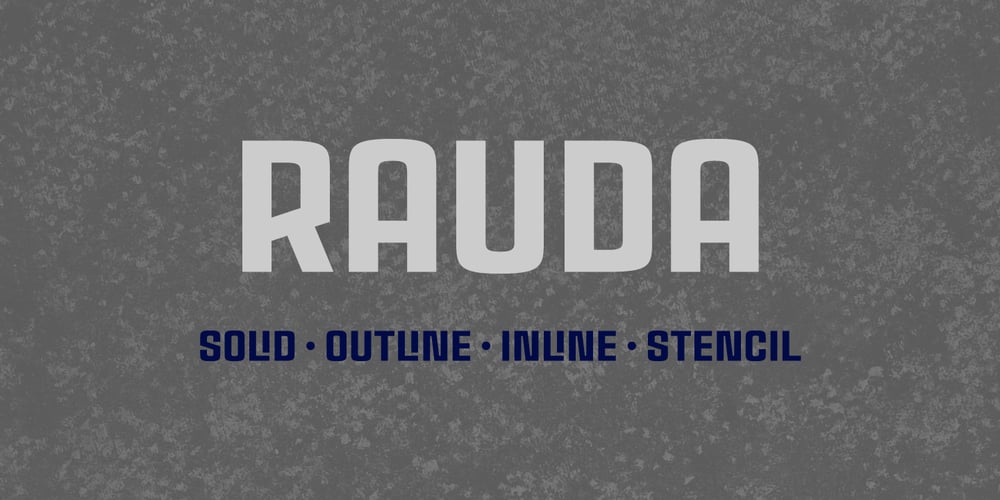
Rauda Font Family was designed by Pablo Balcells and published by Graviton. Rauda contains 8 styles and family package options. Rauda font family has been designed for Graviton Font Foundry by Pablo Balcells in 2017. It is a display, sans serif, geometric typeface, with sharp angles that provides a strong and solid appearence. Rauda consists of 8 styles. Each containing glyph coverage for several languages.